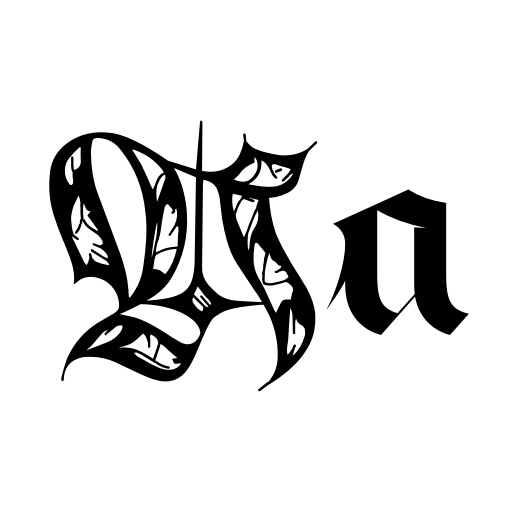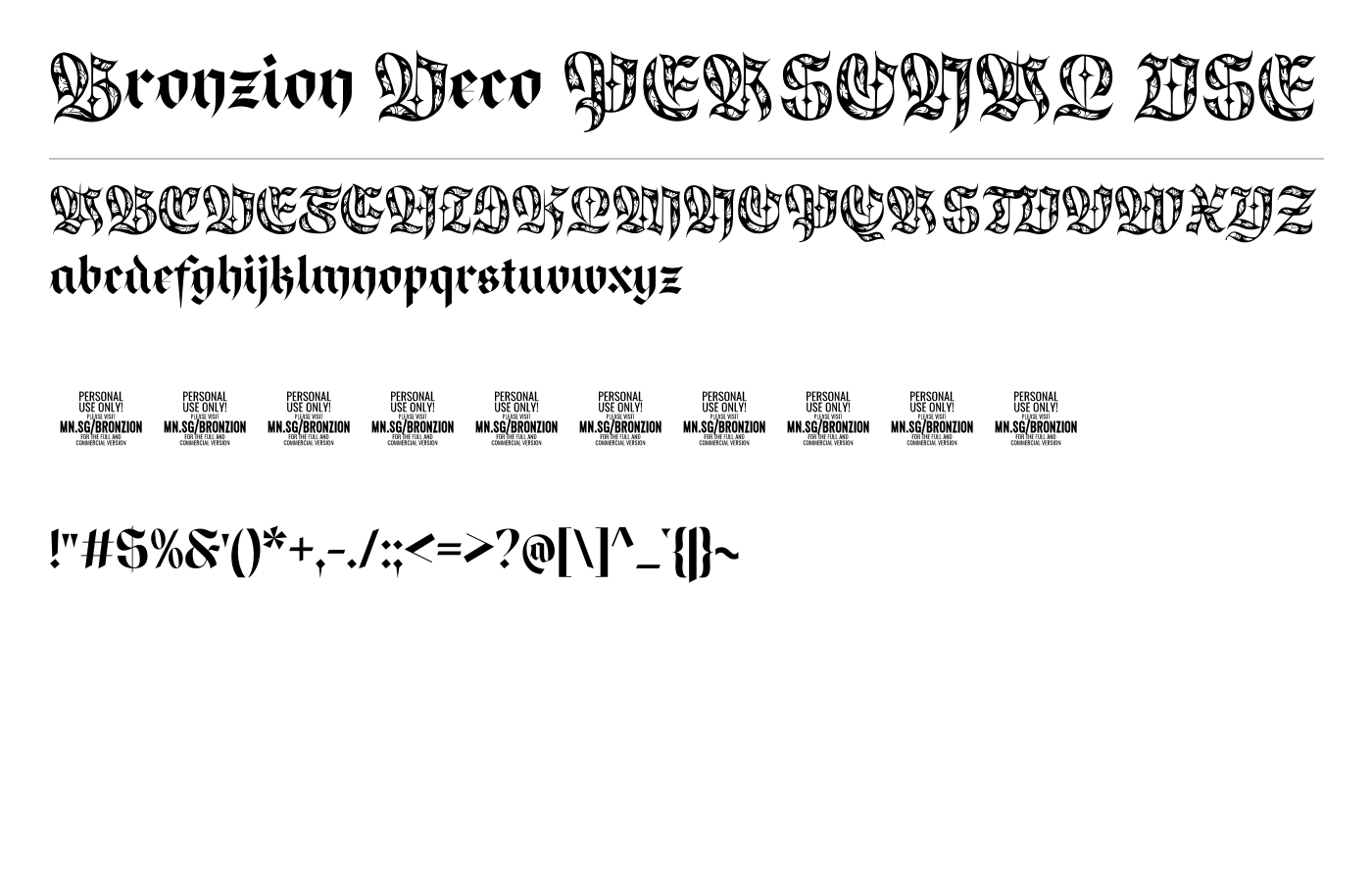
Bronzion Deco is a bold, decorative blackletter serif font with intricate, sharp, and ornamental letterforms that evoke a vintage Gothic style. Its high contrast and stylized uppercase letters make it ideal for striking headlines, logos, or designs seeking an elegant yet edgy, historic feel. This font suits projects needing a dramatic and artistic touch, such as fashion branding, posters, or editorial titles that demand attention.
Bronzion Deco PERSONAL USE Font
About Bronzion Deco PERSONAL USE Font